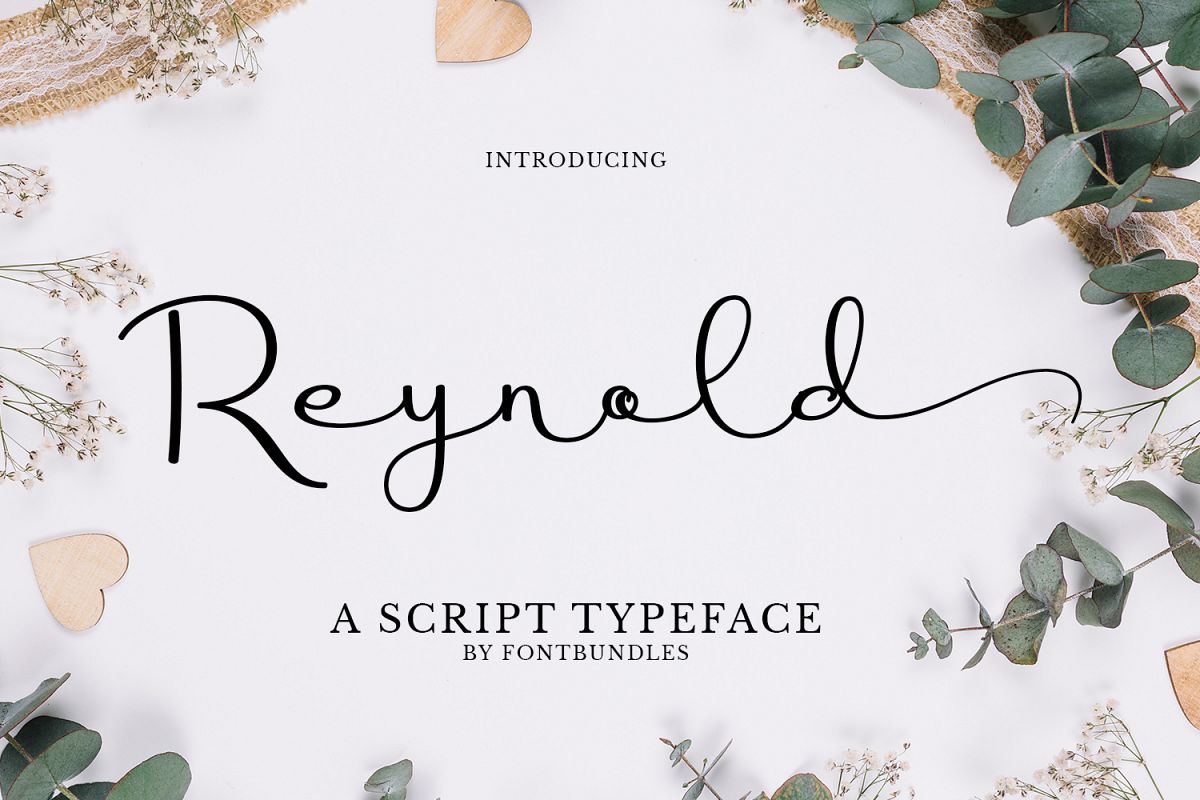
Reynold is a modern script typeface. Perfect for wedding needs, display, quotes, greeting card, business card, logotype, branding, merchandise, and many more.